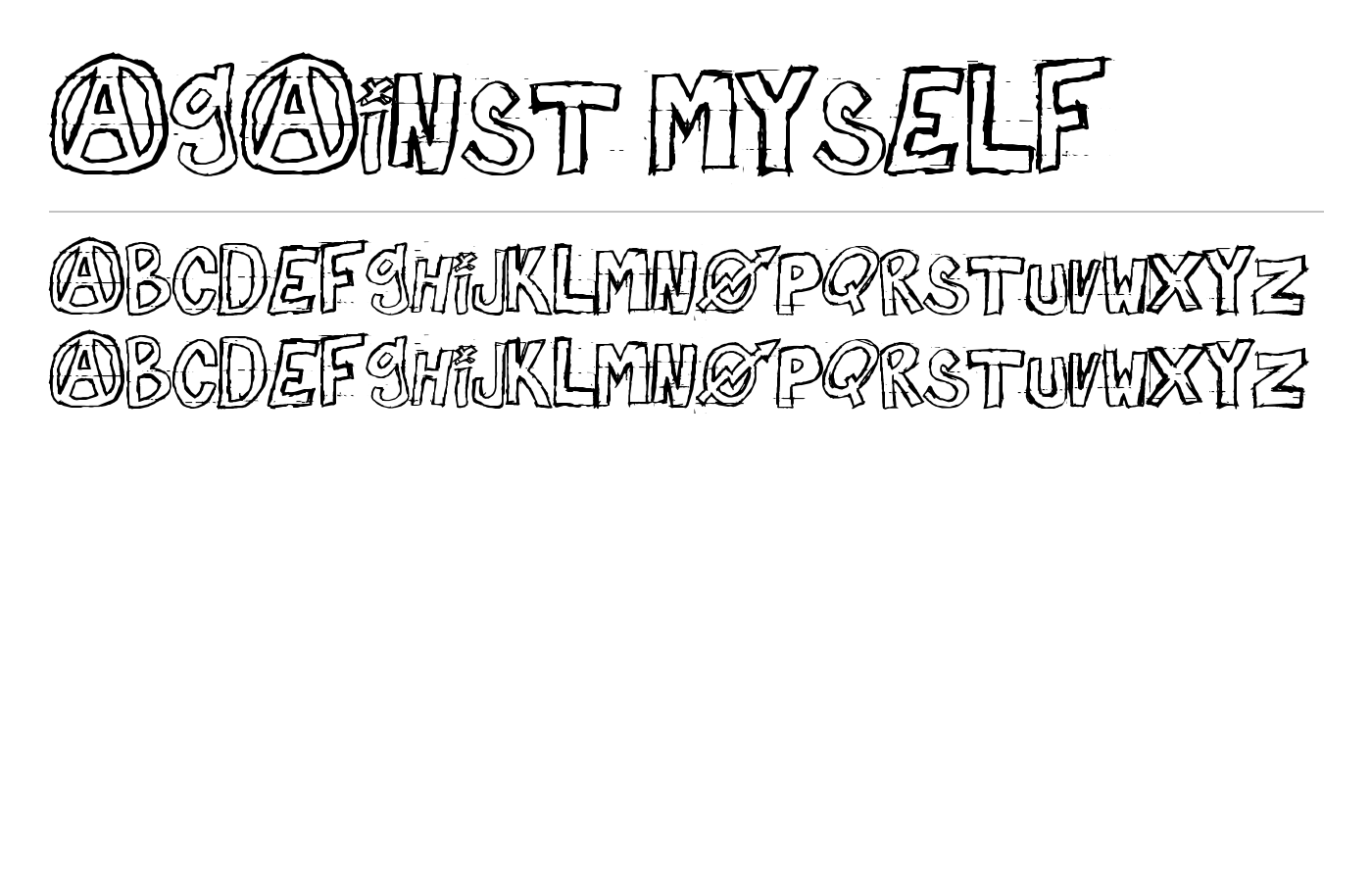
Against Myself is a bold, hand-drawn sans serif font with a raw, distressed texture that gives it a rebellious and edgy character. Its irregular, sketch-like letterforms and uneven strokes evoke a playful yet gritty vibe, making it perfect for underground, punk, or alternative branding, posters, and creative projects seeking a strong, unconventional presence. This font works best in headlines or display use where its unique personality can truly stand out.
against myself Font
About against myself Font